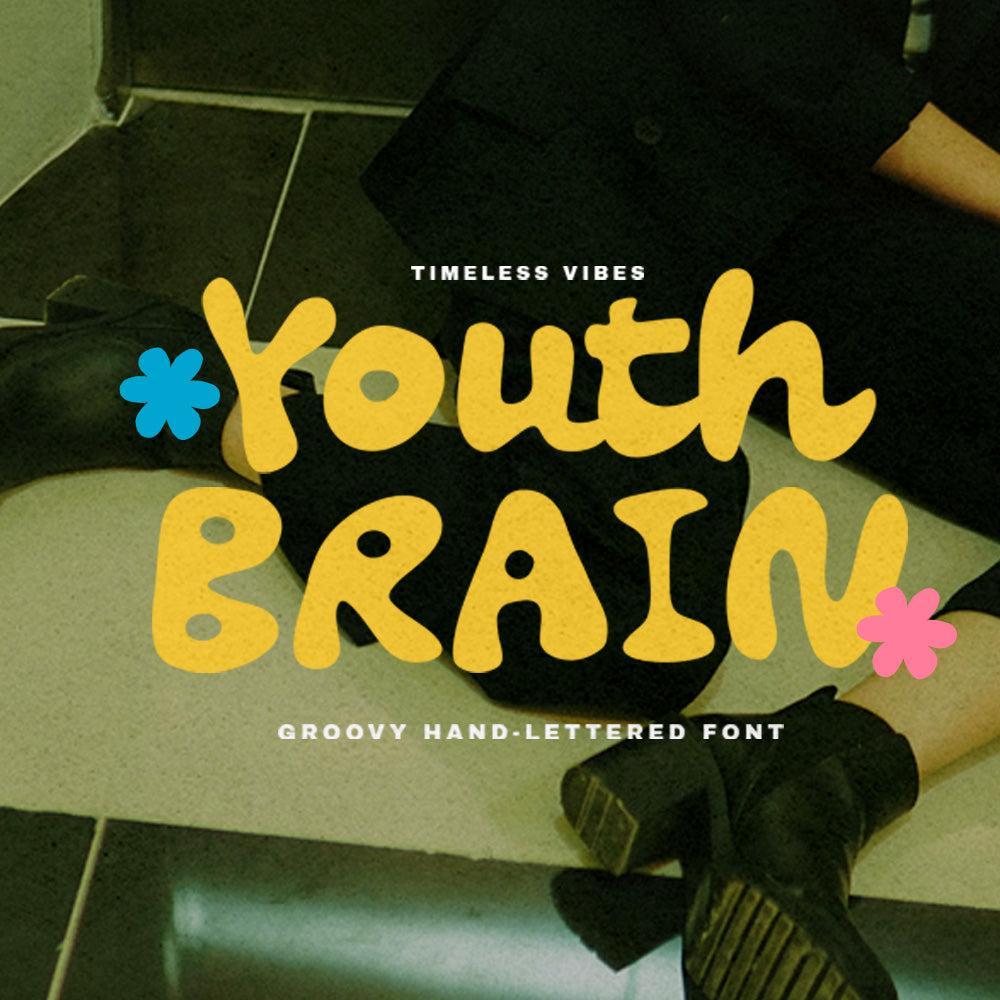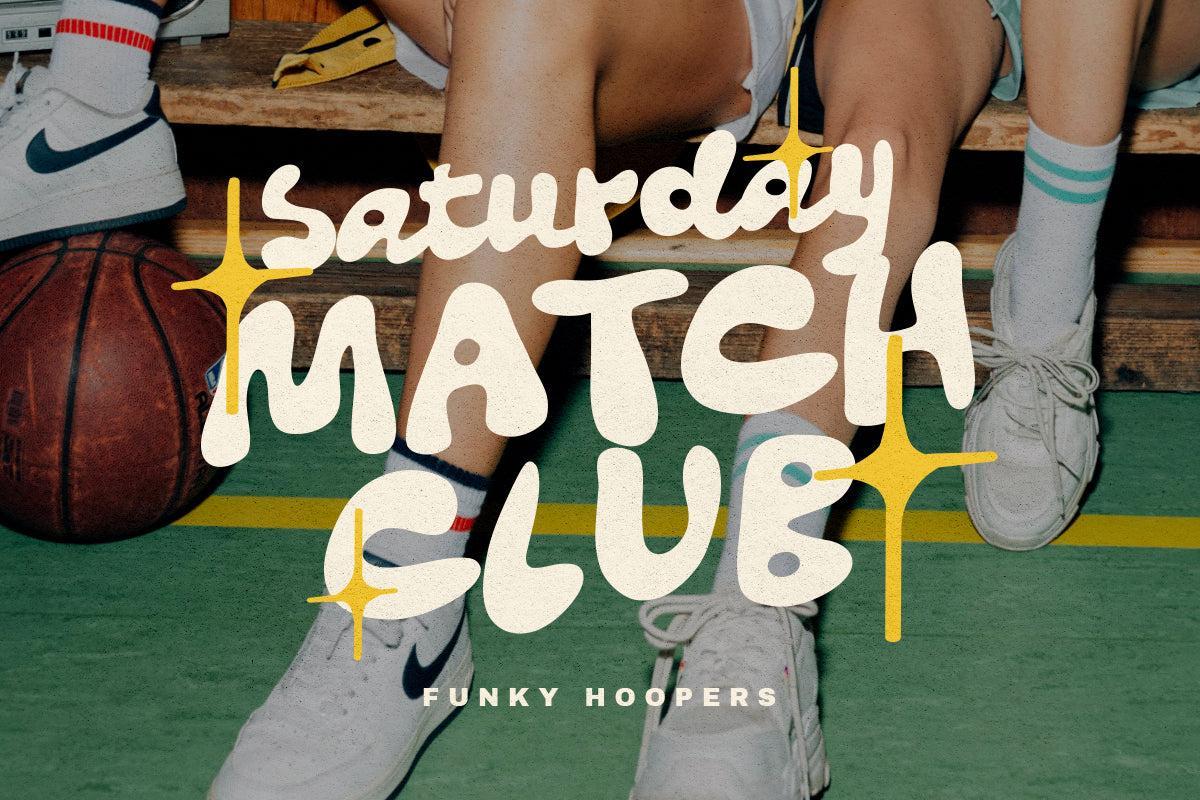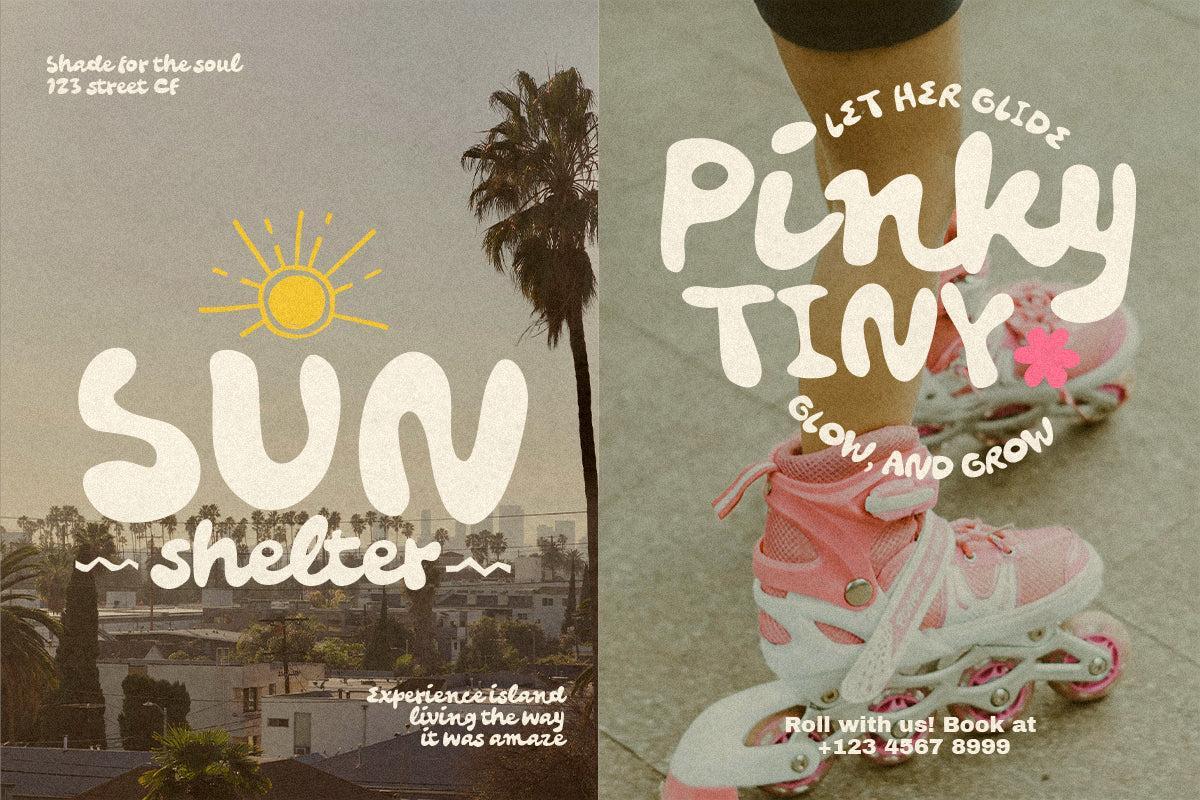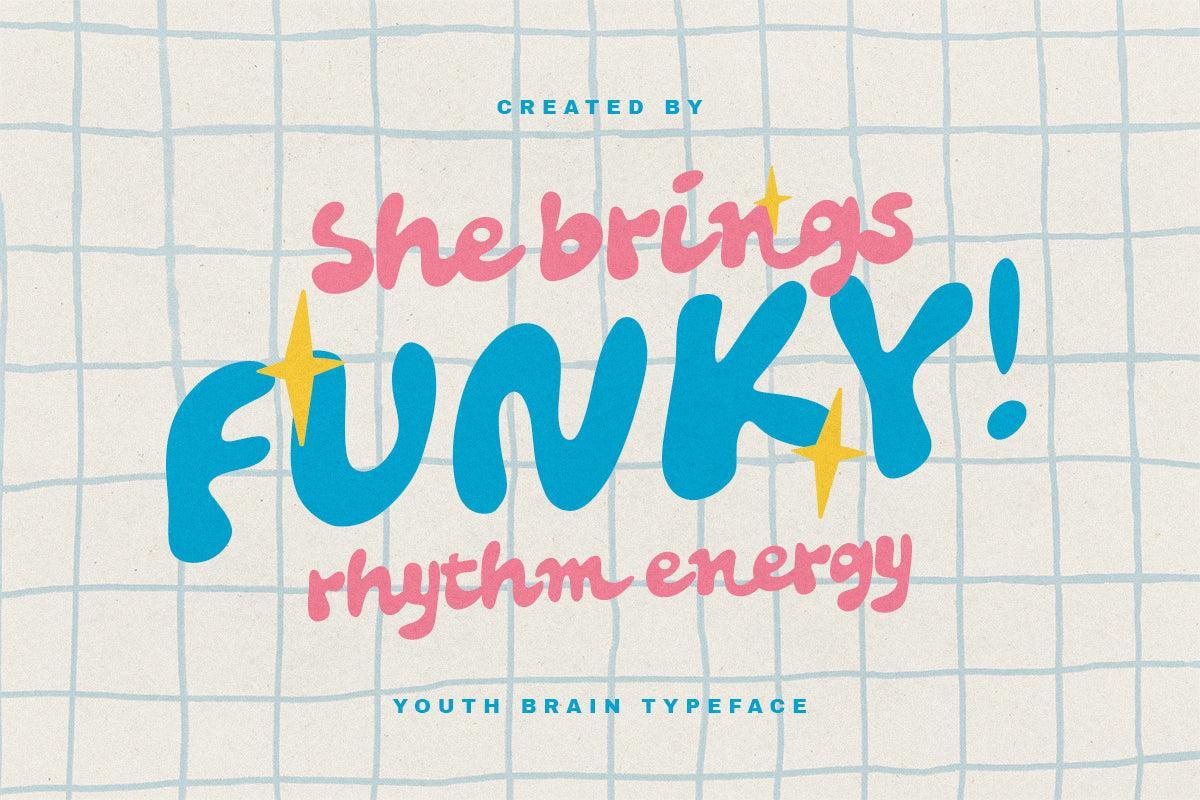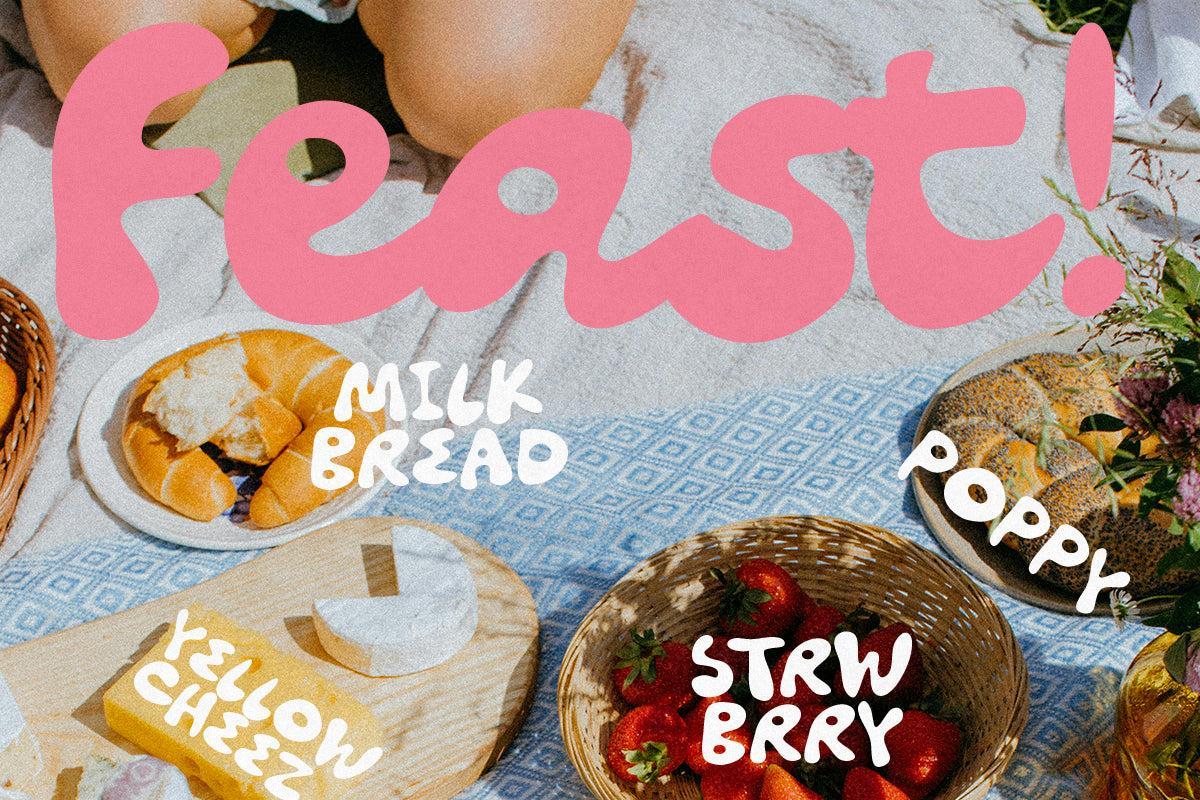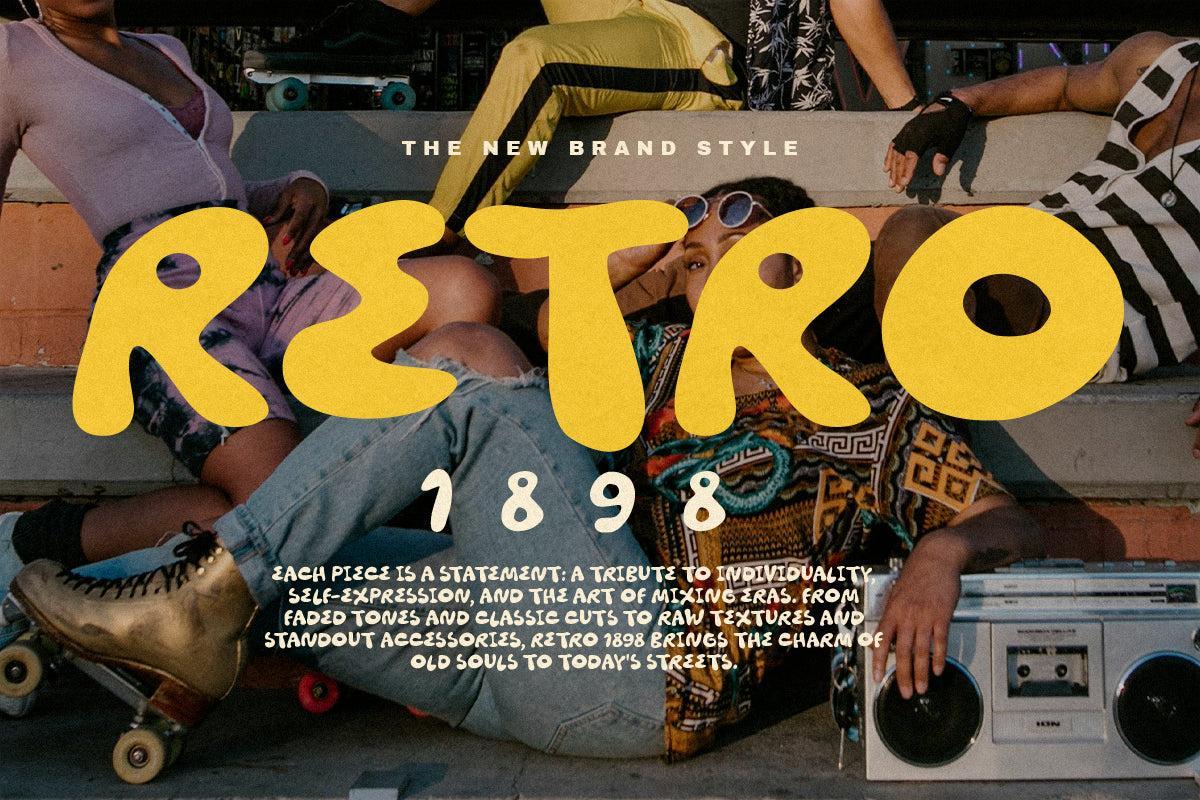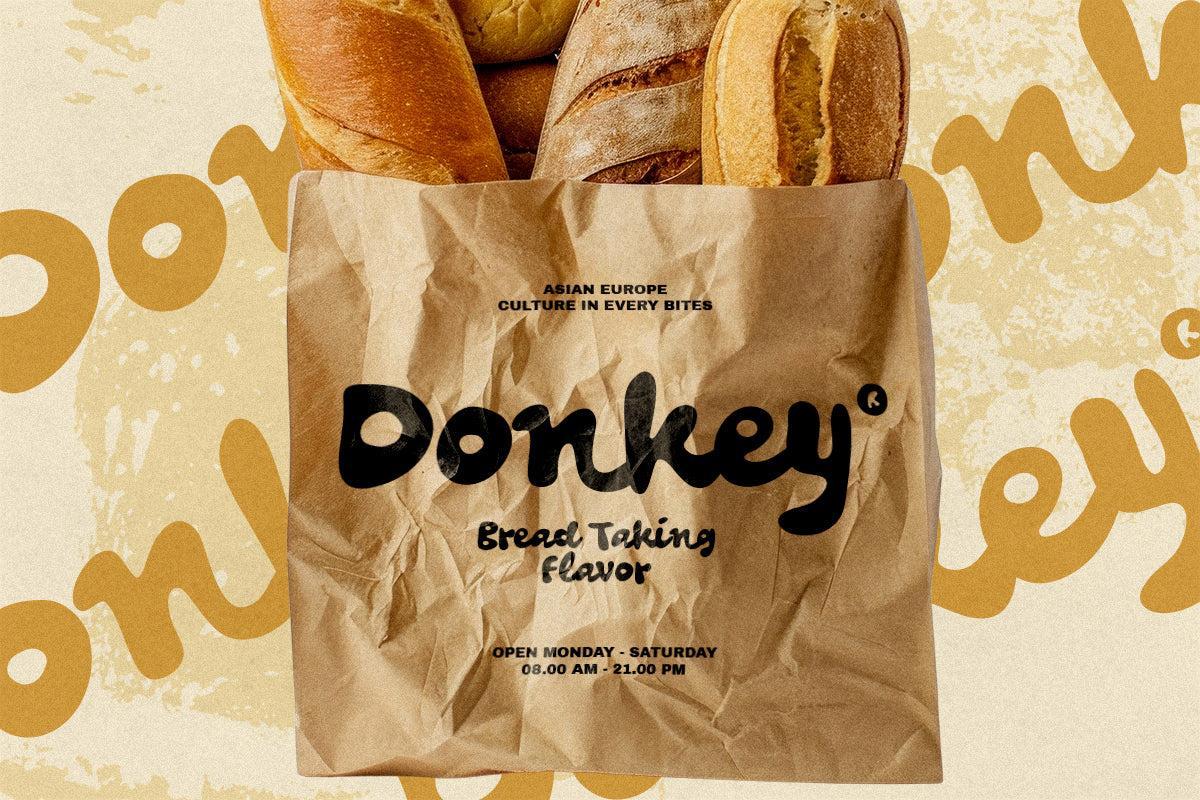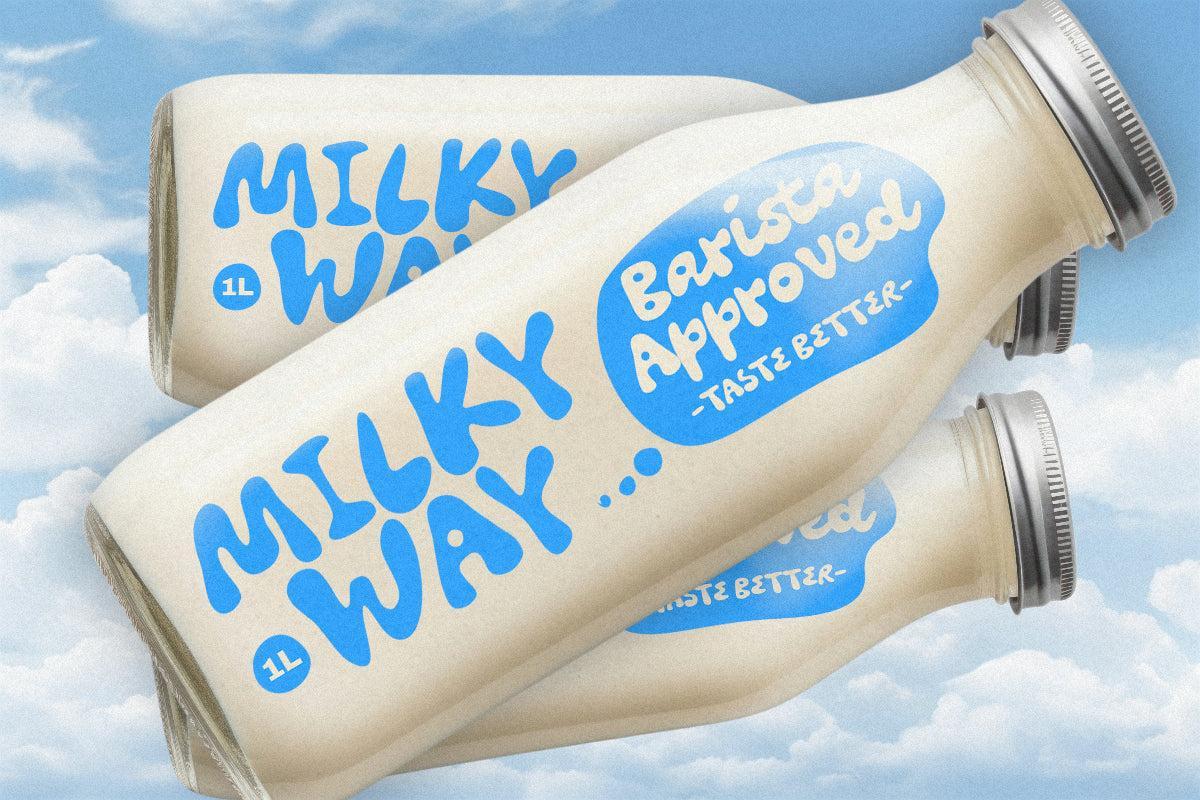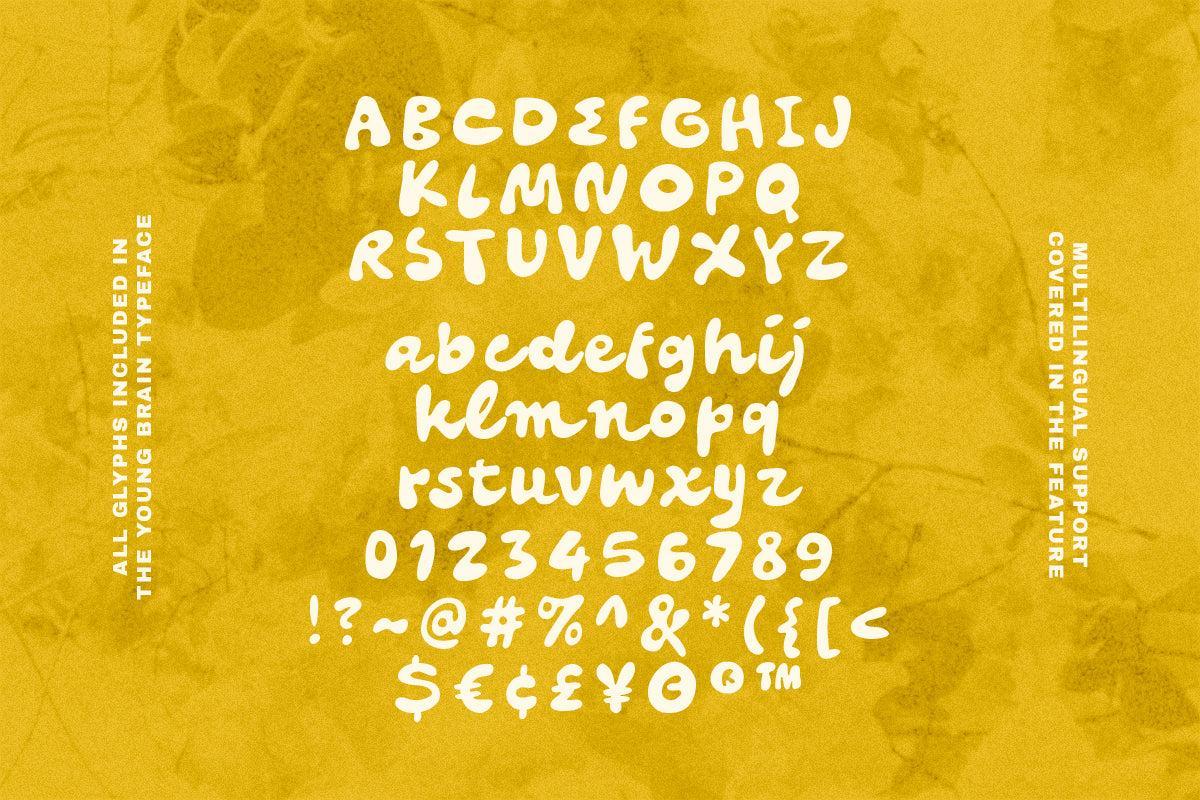
Youth Brain - Groovy Bold Font
Youth Brain - Groovy Bold Font is a hand-lettered font that features a combination of uppercase and lowercase letters, allowing for versatile design options. It supports multiple languages and is suitable for various applications, including branding and logotypes.